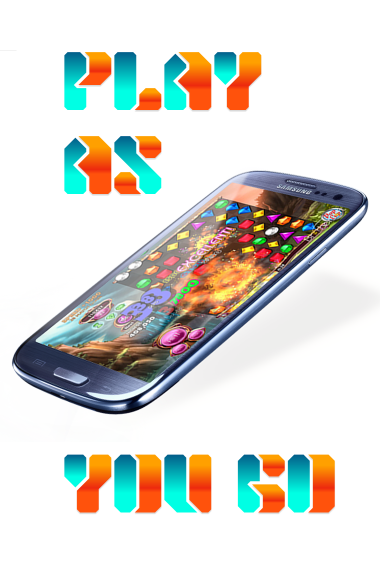
• Stencil font based on octagonal geometry. Oktogon: a busy crossroad in Budapest delineated by eight sides.
Impressive. Where is the 4?
Very nice modern stencil typeface. Clean, original, good. Love the Q.
Excellent and (as with all your work) beautifully weighted and balanced. 10/10
Great work. It reminds me of a cooler version of Sintra which I recently used in a logo competition.
Although yours is a lot more useable and modern.
I even started to do my own version of it in Fontstruct, but never fully completed it.
THIS 4 was worth waiting for, great type. great sample. i love "A"
Unusual stencil and color turns it into something different again!
Is it based on this font?
@ChristianD: My work is based on simple geometry. There are a few similar fonts around, most notably: Curb Desire by KalleGraphics (above); Mass by Max Little, MyFonts; Foldron by Ronald Underwood, MyFonts. Curb Desire (published on Behance in 2009) has a close resemblance to Foldron (2005), but the two works differ in many details. My font, Oktogon Stencil, is somewhat closer to Mass, as both share the same geometry. Since Apple Inc. patented the rounded rectangle, I opted for octagons.:))
Fortunately, there are no design patents in typography, and creative people get inspired by other's works. The first popular sans serif, Akzidenz Grotesk (1896) was thought to be derived from Walbaum or Didot (similar metrics, minus serifs). Helvetica, originally named as Neue Haas Grotesk (1957), was developed to compete with AG in the sans serif arena. Arial (1982), widely distributed by Microsoft Windows, shares many features with Helvetica. In fact, the two typefaces are so similar, it takes an expert to tell them apart.